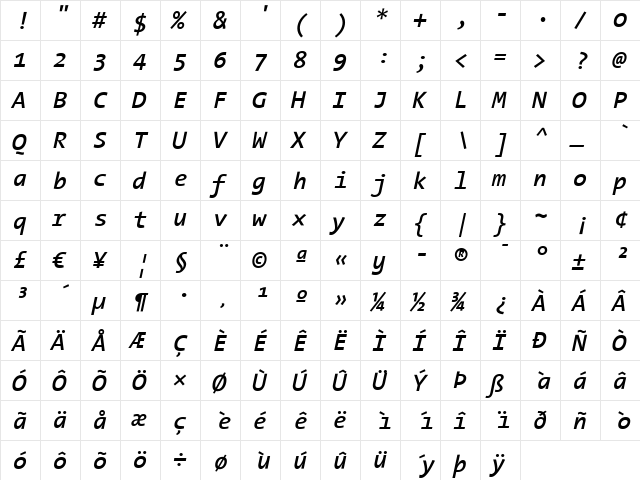
TheSans Mono SemiBold Italic Font Preview
| Foundry | Luc\(as\) de Groot |
Design Context for TheSans Mono Typeface
TheSans Mono uses fixed-width spacing throughout, giving it the structured, systematic character associated with coding environments and technical documentation. Its italic angle brings a sense of urgency and motion to the letterforms. Its bold stroke weight gives it real presence on the page.
Pro Tip: Pair TheSans Mono with a proportional sans for UI contexts where code-style labels and regular body copy need to coexist.